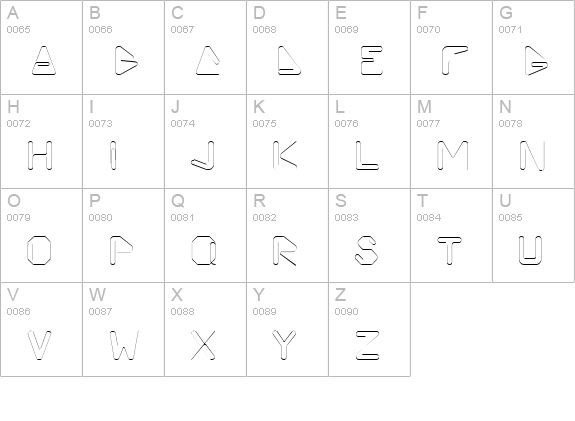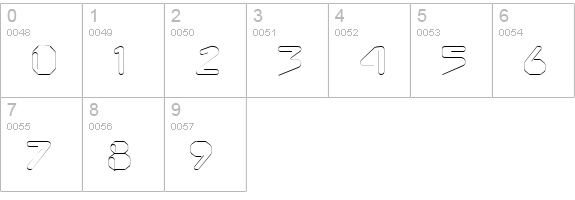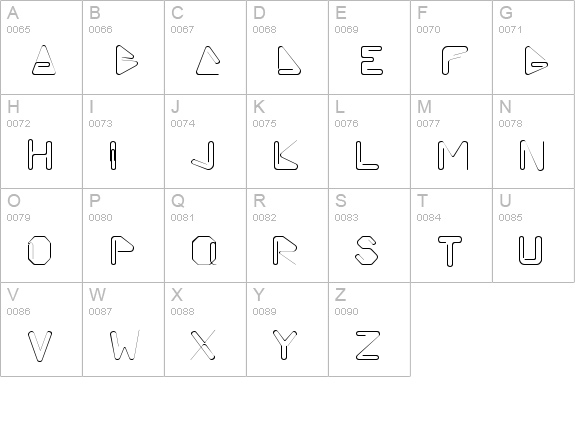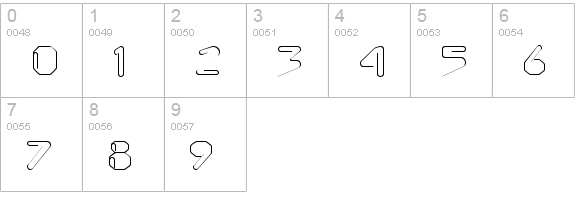
Offshore Font Details
Offshore font is a modern and stylish typeface that exudes sophistication and elegance. Its sleek and clean lines make it perfect for a wide range of design projects, from logos to branding to editorial layouts. This versatile font is sure to make your text stand out and capture the attention of your audience. The best part about Offshore font is that it is completely free to download at FontsMarket.com. With just a few clicks, you can add this stunning font to your collection and start using it in your projects right away. Don't miss out on this amazing opportunity to elevate your designs with the Offshore font.